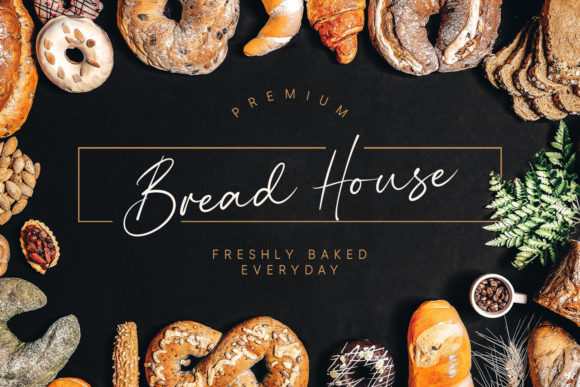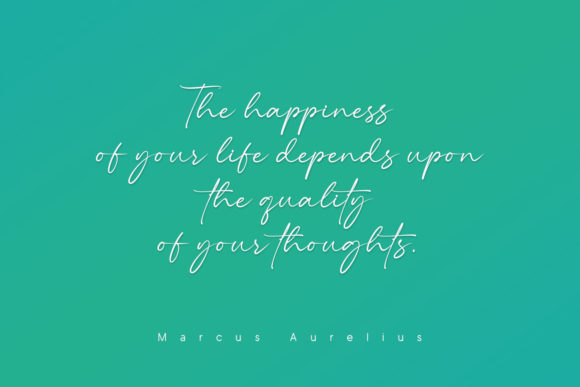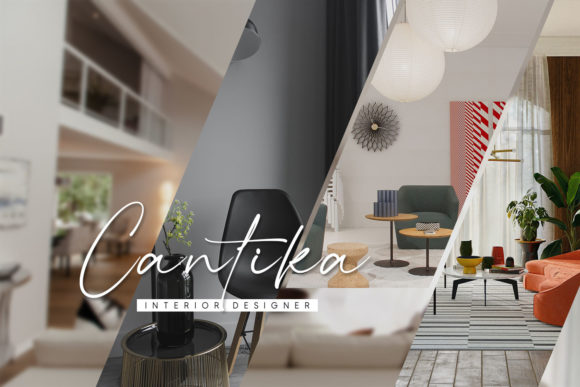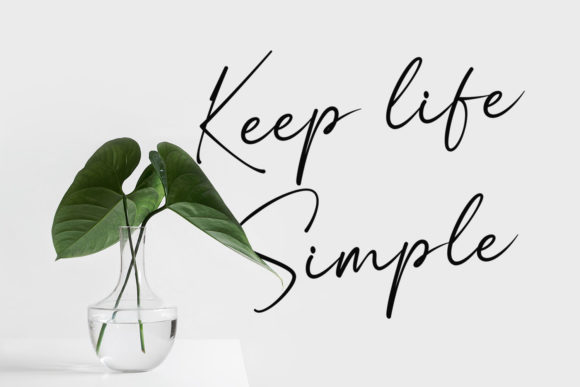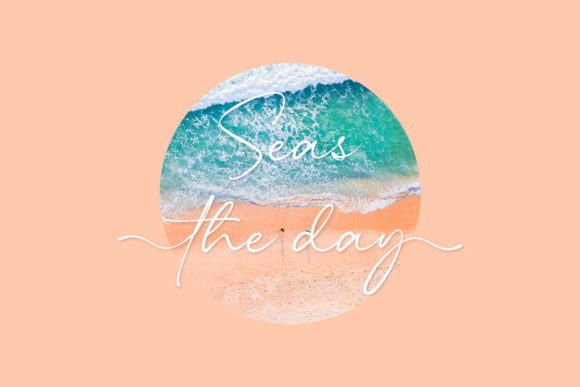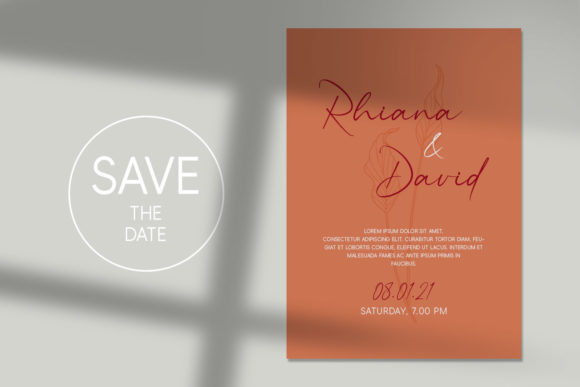
Introduction to Fife Gallery Font
Fife Gallery is a stylish and delicate script font.
It has a clean, thin and smooth vibe and it will be a hit for any design that you want to add it to This font is PUA encoded which means you can access all of the glyphs and swashes with ease.
Fife Gallery Font offers exceptional quality and versatility, making it a valuable addition to your design toolkit. Whether you’re creating for personal projects or commercial use, Fife Gallery Font delivers professional results.